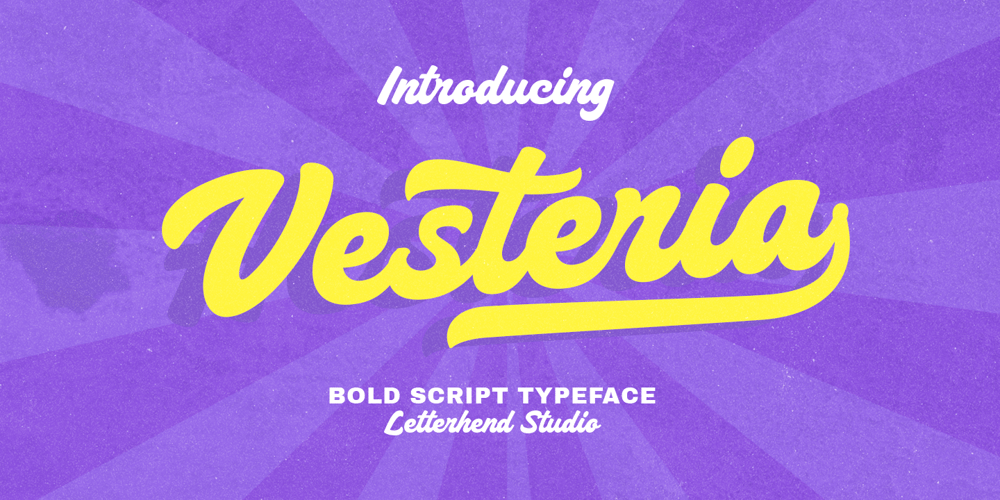
Vesteria Font Family was designed by Hendry Juanda and published by Letterhend. Vesteria contains 1 styles and family package options. Vesteria is a retro bold script which will bring you back to 60s feel. This font perfectly made to be applied especially in logo, and the other various formal forms such as invitations, labels, logos, magazines, books, greeting / wedding cards, packaging, fashion, make up, stationery, novels, labels or any type of advertising purpose.Features : Uppercase & lowercase Numbers and punctuation Alternates/Ligatures Multilingual suppport PUA encoded